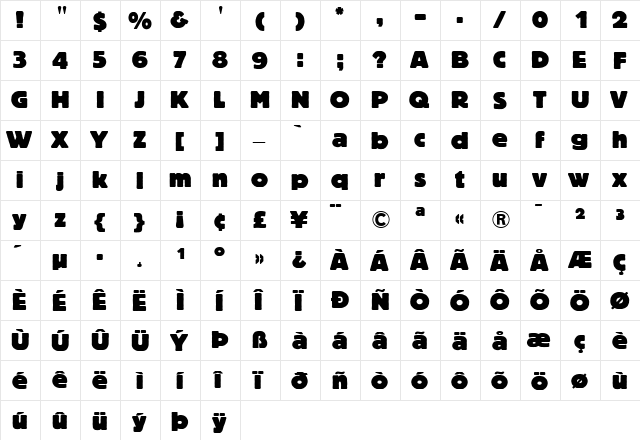
Block Berthold Regular Font Preview
Block Berthold Regular
Design Context for Block Berthold Typeface
Block Berthold offers clean, dependable letterforms without strong stylistic allegiance, making it a practical choice for designers who need flexibility.
Pro Tip: Use Block Berthold in both headline and body roles to test its range before committing to a single application.